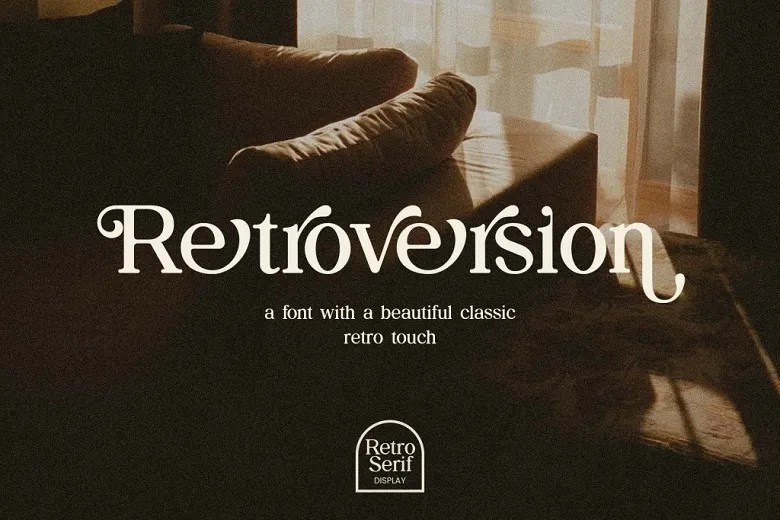
Retroversion Font Family
Retroversion is a retro serif font that embodies class, elegance, and style. Its sophisticated design makes Retroversion font a versatile choice for a wide array of projects, including logos, weddings, magazines or books, websites, branding, and much more. This adaptability allows it to enhance any design, providing a refined touch that appeals to diverse audiences.
The distinct letterforms of Retroversion combine vintage charm with contemporary flair, making it suitable for both traditional and modern themes. Whether you’re creating promotional materials, designing elegant invitations, or developing impactful branding elements, this font will elevate your work and leave a lasting impression.
Crafted for both aesthetic appeal and readability, Retroversion ensures that your text stands out beautifully across various media. Its stylish appeal makes it a valuable addition to any designer’s toolkit, perfect for conveying sophistication in all your design endeavors.
Retroversion Font Family